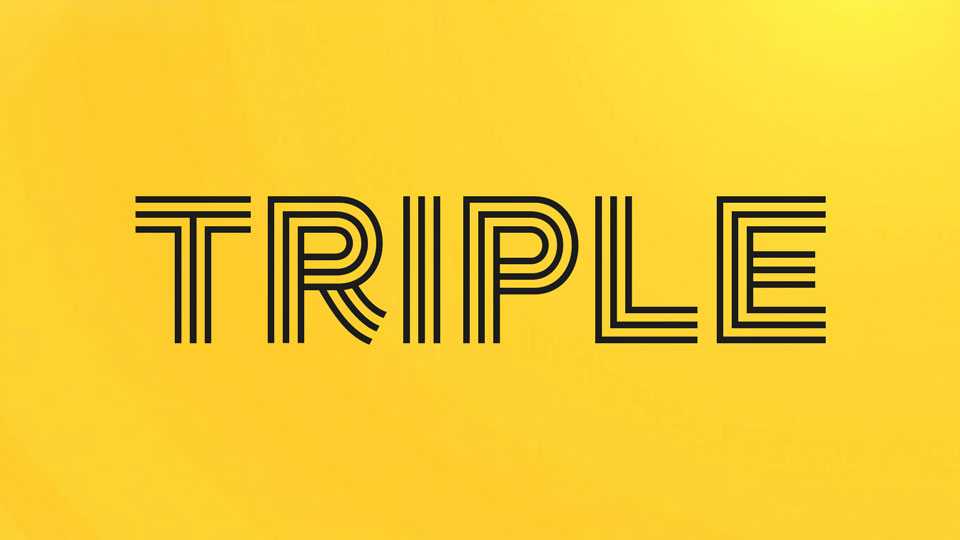
Download Triple font, a bold and geometric display typeface defined by its striking triple-line construction. Each letter is built from parallel strokes that create rhythm, energy, and a strong sense of structure.
Designer: Vasiliy Shishkin